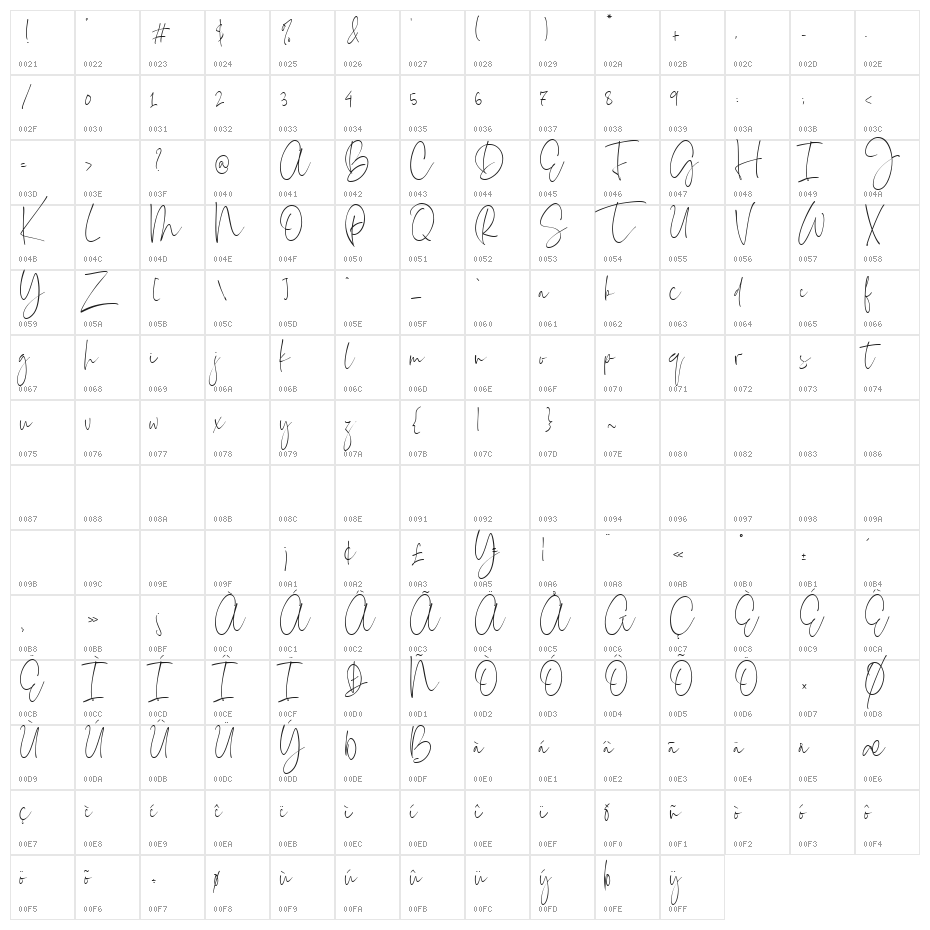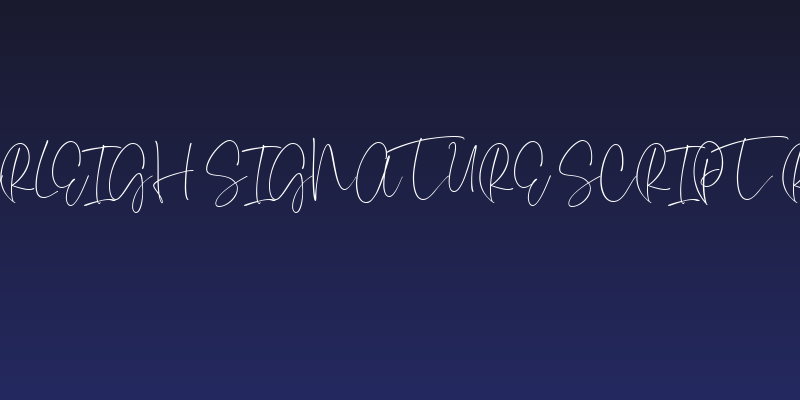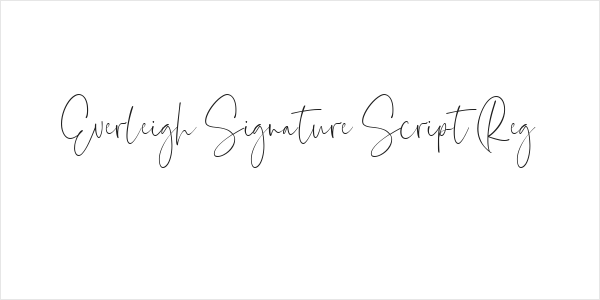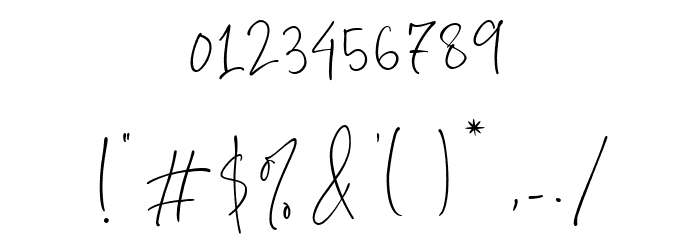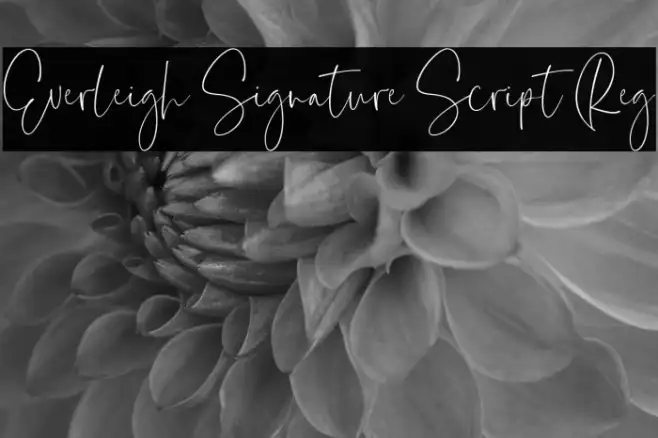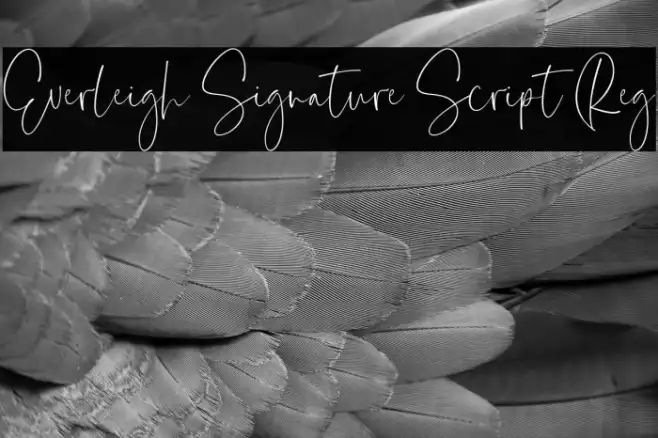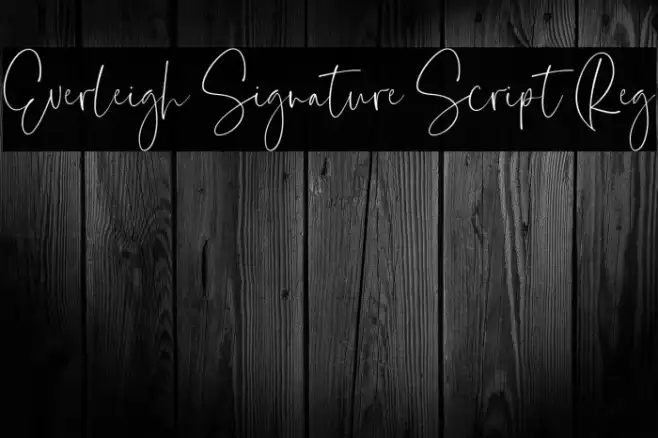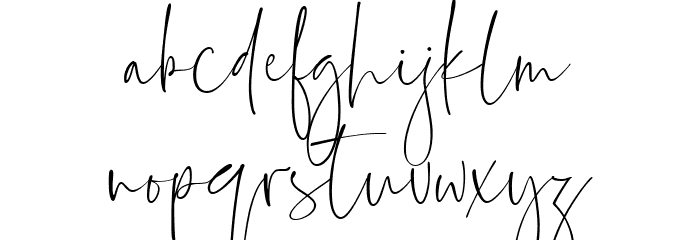
Everleigh Signature Script Reg Font
Everleigh Signature Script Reg Description
This font exudes a sophisticated and elegant handwritten style, characterized by its fluid and graceful script. The letters are connected with smooth, flowing strokes, giving it a natural and personal touch. The uppercase letters are slightly larger and more pronounced, while the lowercase letters maintain a consistent flow, enhancing readability. The numbers and special characters are designed to complement the overall aesthetic, maintaining the same fluidity and elegance. This font is perfect for adding a touch of class and personality to any project, making it ideal for invitations, branding, and personal stationery.
| Use Case | Invitations, Branding, Stationery |
| Proposed Projects | Ideal for wedding invitations, personal branding, stationery, and elegant logo designs. |